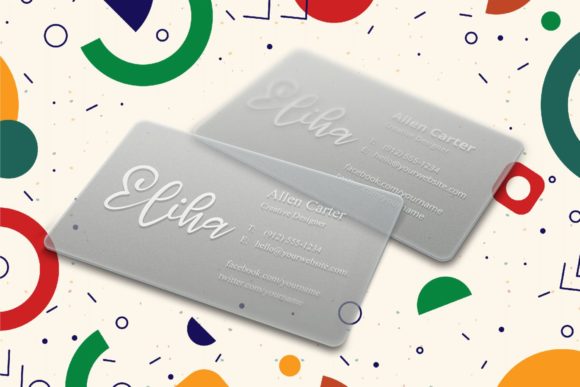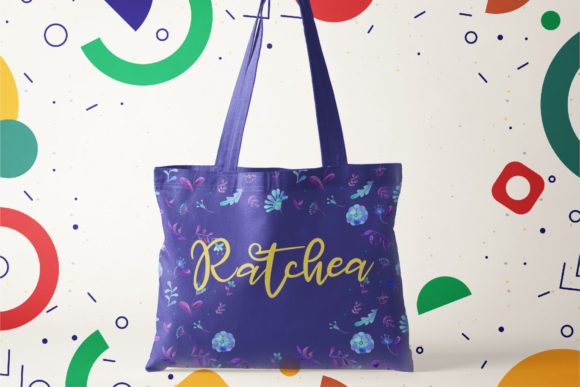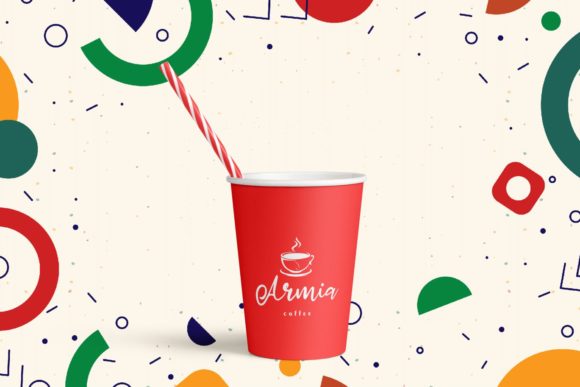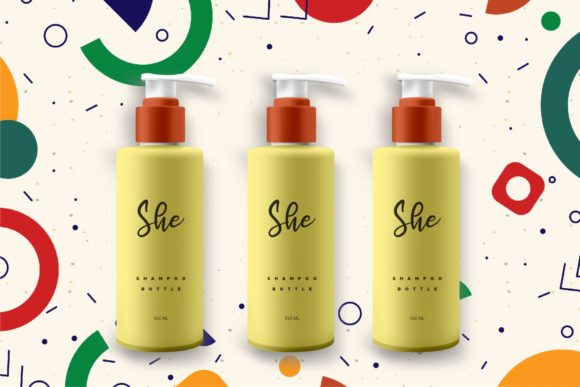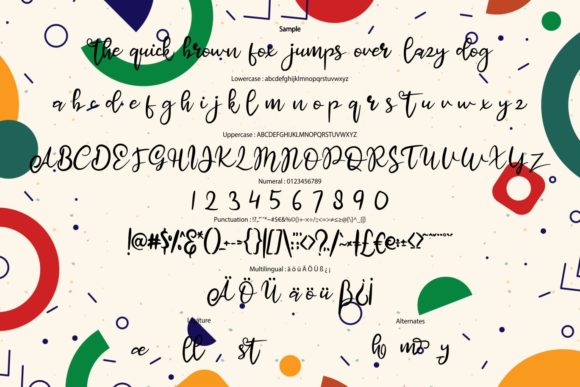
Have you ever stared at a blank page, waiting for inspiration to strike? For many creatives, it’s that moment of blank slate that sparks the most innovative ideas. Perhaps it’s the thrill of experimenting with new tools, or the joy of bringing a concept to life. Whatever it is, it’s that spark of creativity that drives us to push the boundaries of what’s possible.
One of the most effective ways to add a touch of personality to your designs is with the right font. That’s where the lovely Anties Font comes in – a versatile script font that’s perfect for everything from greeting cards to headlines. With its romantic feel, Anties Font is guaranteed to make your next project stand out. Whether you’re a seasoned designer or just starting out, this font is a valuable addition to your toolkit.
- Unique Characteristics: The font features a unique blend of modern and vintage elements, with intricate details and ornaments that set it apart from other fonts in its class.
Anties Font Review
Overall, I found Anties Font to be an interesting addition to the world of typography. While it has its strengths, it also has some limitations that need to be considered.
- The Anties Font has a unique, quirky feel that can add a touch of personality to any design project.
- The font is highly customizable, with a wide range of weight and style options available.
- Anties Font is available in a variety of languages, making it a great choice for global design projects.
- The font’s unique style may not be to everyone’s taste, and some users may find it difficult to read.
- The font’s customization options can be overwhelming for beginners, and may require some trial and error to get right.
- Anties Font may not be suitable for body text, as its unique style can be distracting in large quantities.
In conclusion, Anties Font is a solid choice for designers looking to add some personality to their projects. While it has some limitations, its unique style and customization options make it a great addition to any design toolkit.
“Anties Font” is ideal for:
- Restaurant menus and signage
- Br